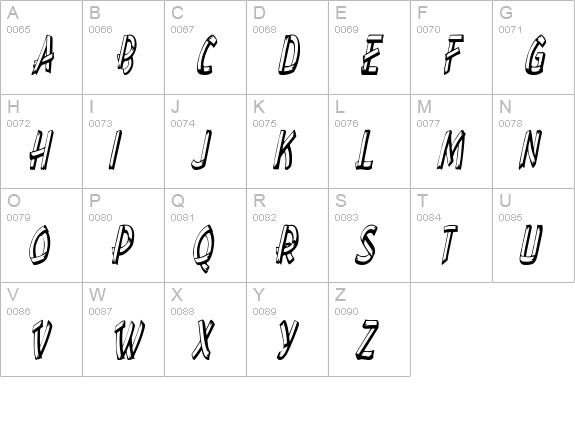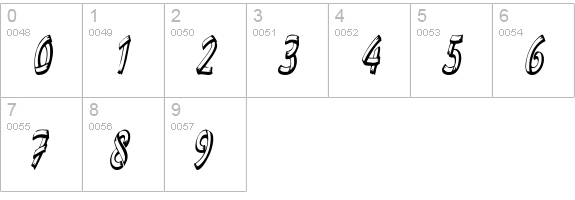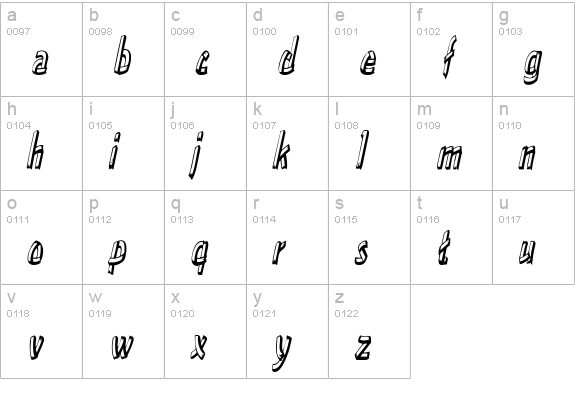
TreehouseCondensed Oblique Font Details
TreehouseCondensed Oblique is a distinctive, italic variant in the TreehouseCondensed typeface family \xE2\x80\x94 well suited to design and typography projects.
TreehouseCondensed Oblique font is a stunning and versatile typeface that adds a touch of elegance and sophistication to any design project. With its sleek and slanted design, this font is perfect for creating eye-catching headings, logos, and branding materials. The condensed nature of this font allows for maximum impact, making it ideal for projects that require a clean and modern look. Its slanted oblique style adds a dynamic and energetic touch, making your designs stand out from the crowd. Not only does TreehouseCondensed Oblique font offer a visually appealing aesthetic, but it also provides excellent legibility, ensuring that your message is easily conveyed to your audience. Whether it's print or digital, this font is a reliable choice for any medium. And the best part? TreehouseCondensed Oblique font is freely available to download at FontsMarket.com. This means that you can enhance your design projects without any additional cost. Simply head over to FontsMarket.com, and you'll have access to this incredible font, ready to elevate your designs to new heights. So why wait? Download TreehouseCondensed Oblique font today and unlock a world of possibilities for your design projects.